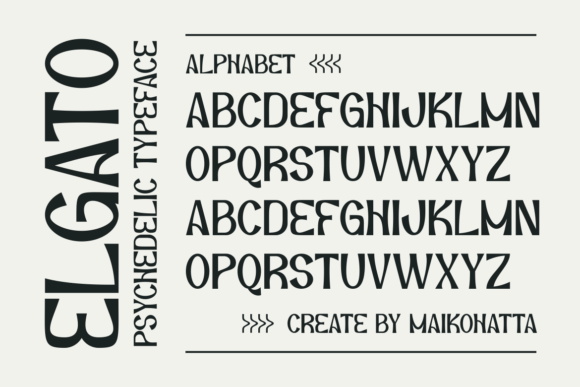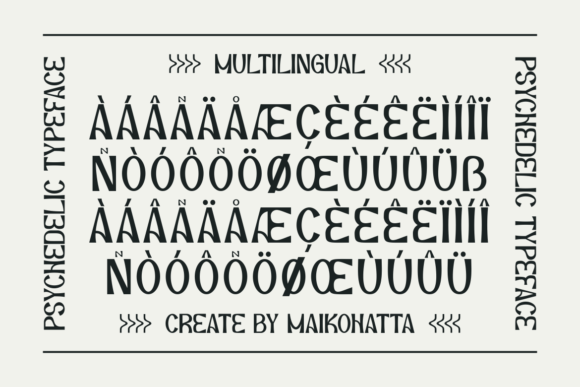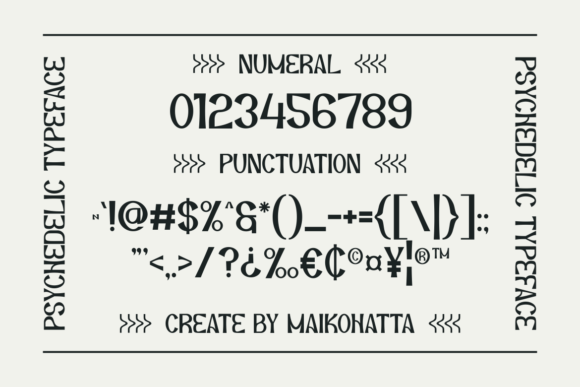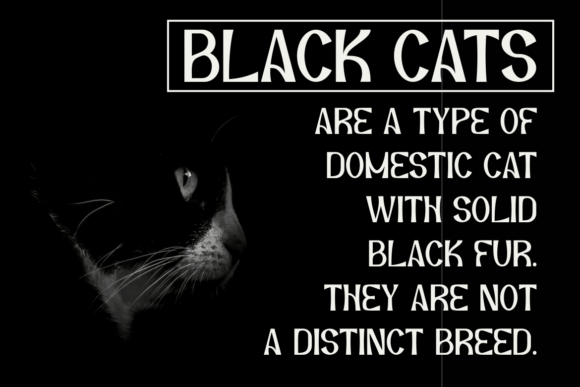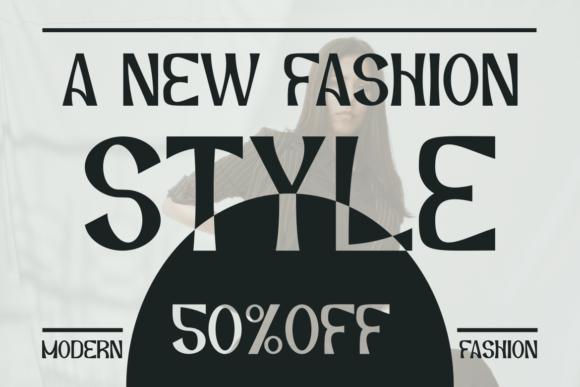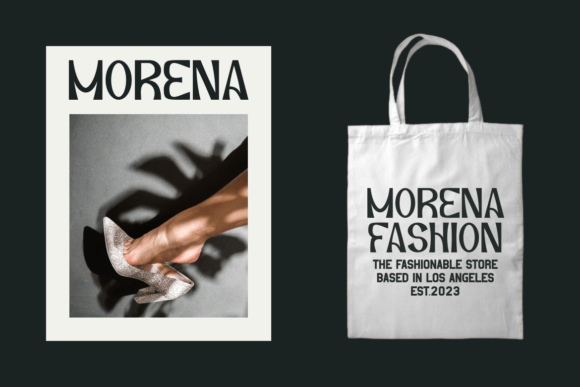
The Elgato Font: A Psychedelic Dream for Creative Minds
I’ll never forget the time I was working on a project for a client who wanted a bold, eye-catching font to match their vibrant brand. I scoured the internet for hours, but nothing seemed quite right. That was until I stumbled upon the Elgato Font. With its energetic and abstract characteristics, it was like a breath of fresh air. I knew immediately that it was the perfect fit for my client’s project, and I couldn’t wait to dive in and explore its creative possibilities.
As a designer, I’m always on the lookout for fonts that can help me stand out from the crowd. The Elgato Font delivers in spades. Here are a few things I love about it:
- ✨ Unique and captivating design: The Elgato Font has a psychedelic style that’s perfect for creating striking visuals.
- ✅ Contemporary feel: The font’s modern design perspective makes it perfect for projects that need a fresh, cutting-edge look.
- 🎨 Artistic versatility: The Elgato Font is perfect for a wide range of creative projects, from graphic designs to posters and promotional materials.
Of course, no font is perfect, and there are a few quirks to be aware of:
- 🤔 Legibility at small sizes: Like many decorative fonts, the Elgato Font can be a bit tricky to read at small sizes. Be sure to test it out before committing to a particular size.
- ⚠️ Limited use cases: While the Elgato Font is incredibly versatile, it’s not the best choice for every project. For example, it may not be the best fit for body text or formal documents.
The Designer Inspiration Behind the Elgato Font
The Elgato Font was inspired by the psychedelic art movement of the 1960s. Designers like Peter Max and Wes Wilson were known for their bold, colorful designs, and the Elgato Font captures the essence of that era. The font’s abstract, energetic design is perfect for creative projects that need a touch of experimentation and adventure.
| What is the Elgato Font? | The Elgato Font is a psychedelic-style typeface with energetic and abstract characteristics, perfect for creative projects that need a touch of experimentation and adventure. |
| What kind of projects is the Elgato Font best suited for? | The Elgato Font is perfect for graphic designs, posters, art, and promotional materials that need a striking, experimental, or unique visual appearance. |
| Is the Elgato Font easy to read? | Like many decorative fonts, the Elgato Font can be a bit tricky to read at small sizes. However, it’s perfect for headlines, titles, and other display text. |